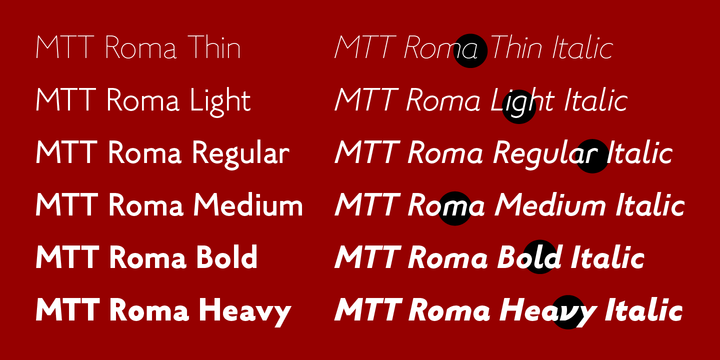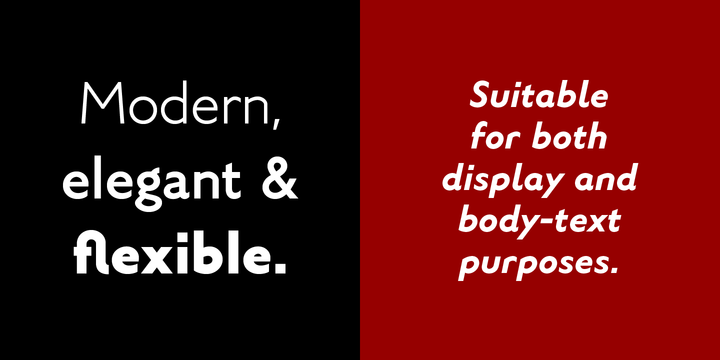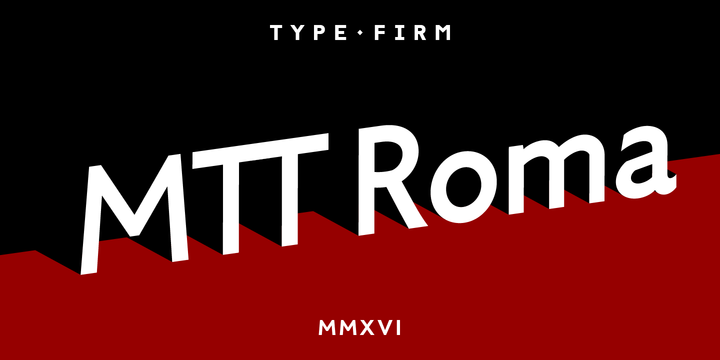
MTT Roma Font Family
MTT Roma is designed to re-create the atmosphere of the city of Rome of the 21st century. The studio for the letterform evolved from the Trajan Column alphabet.